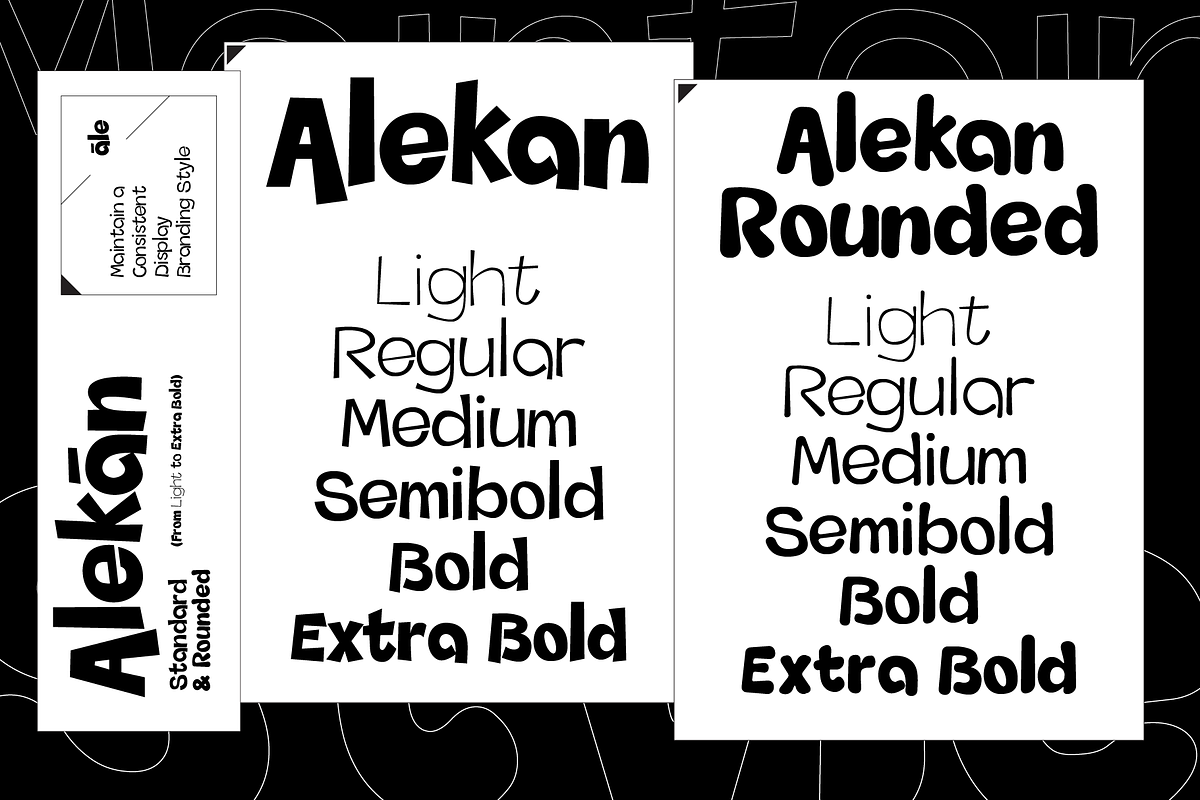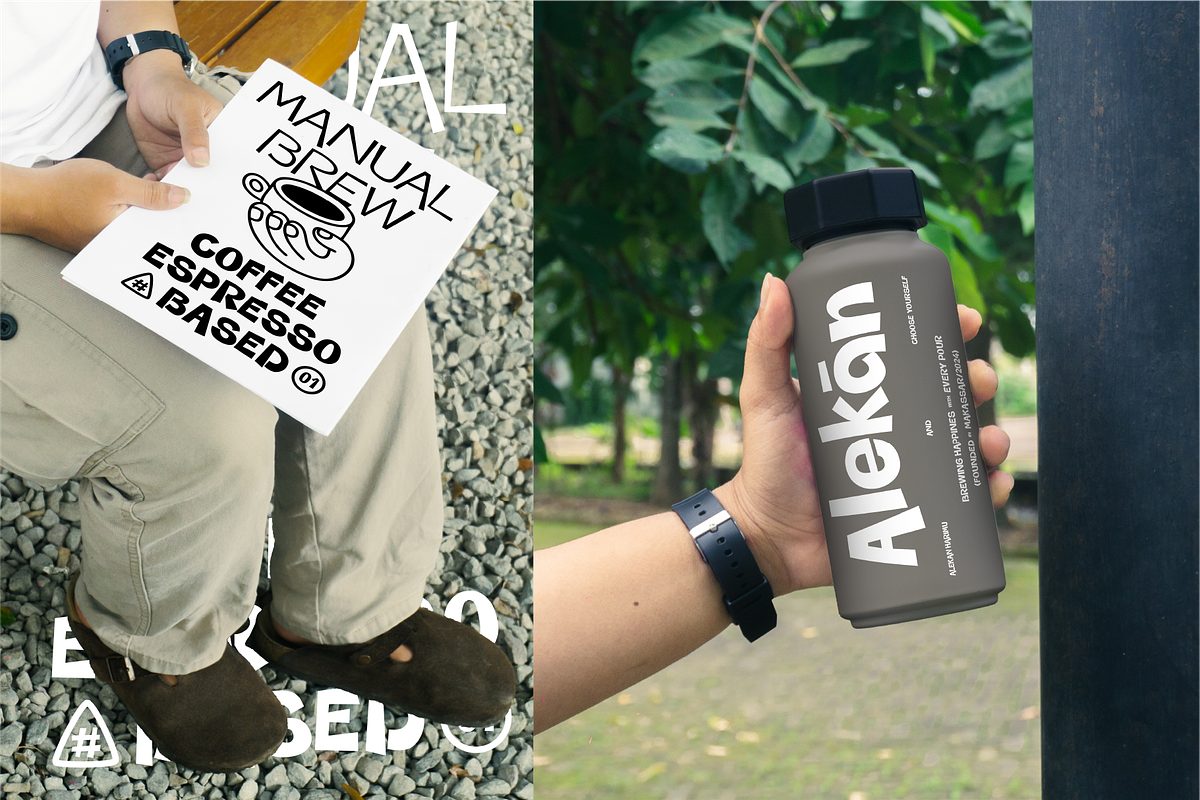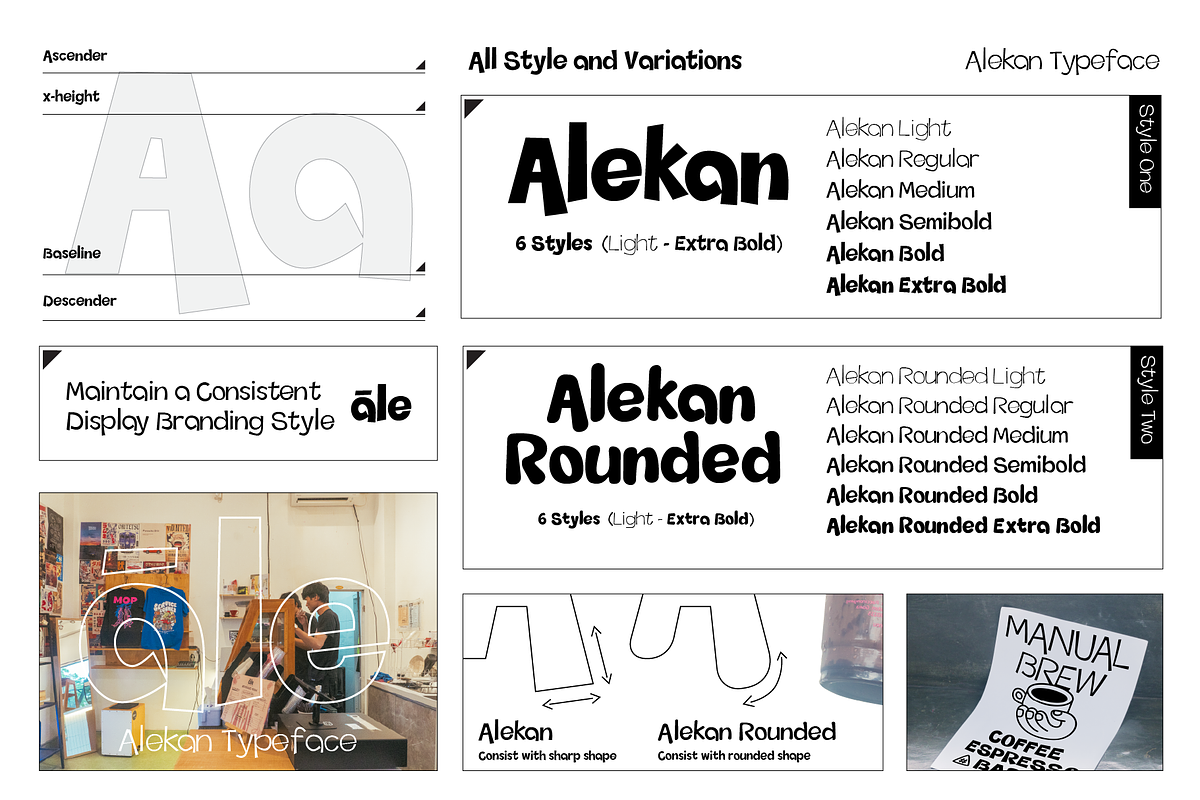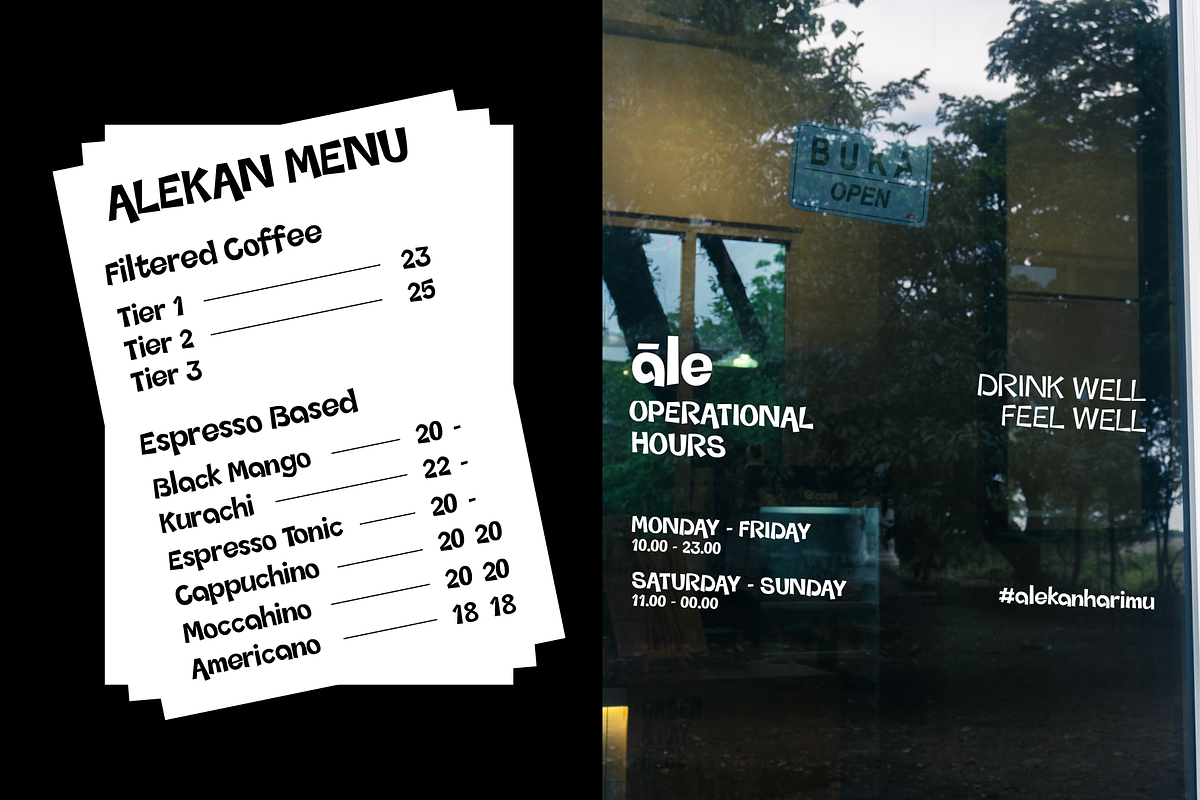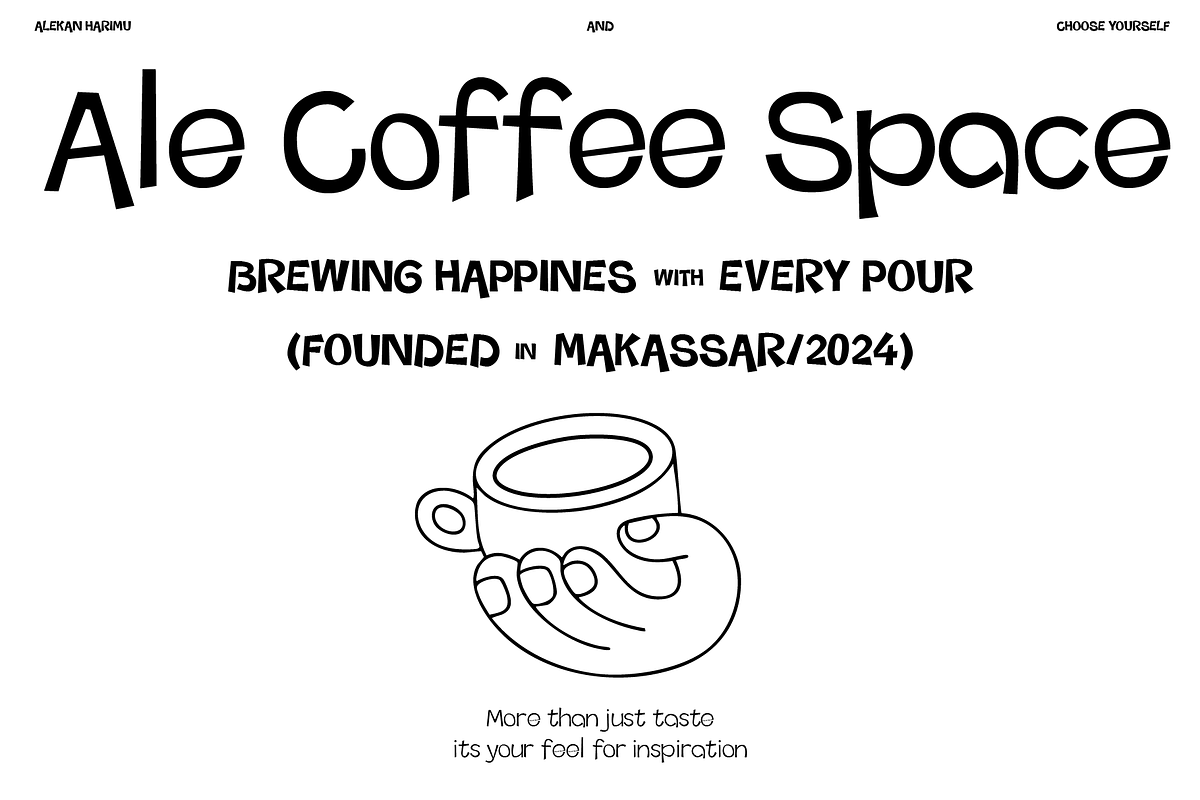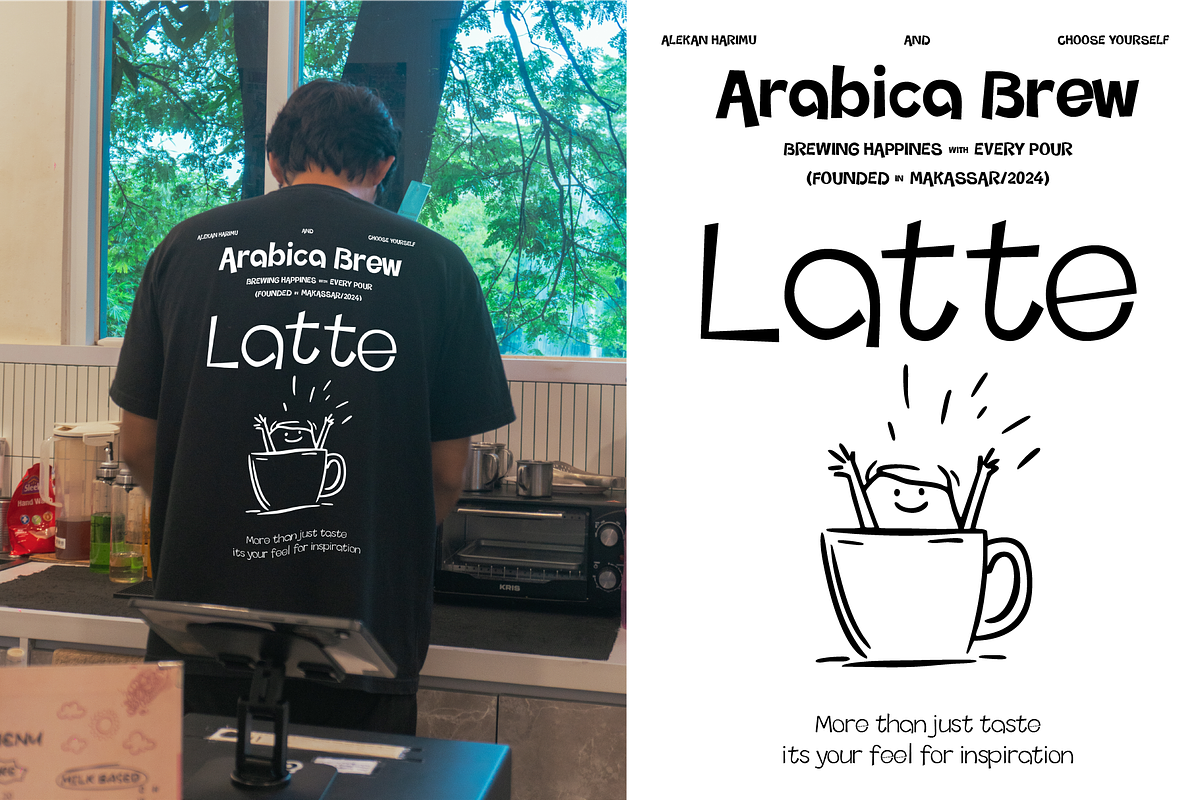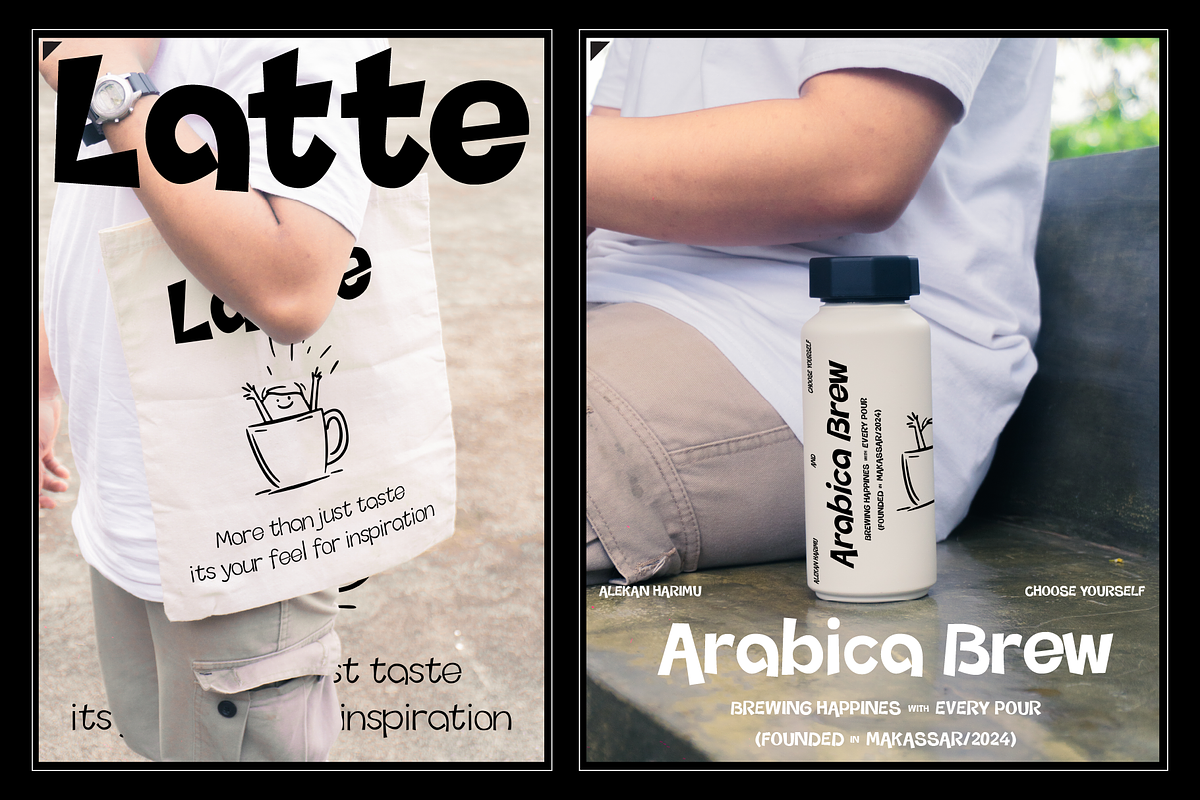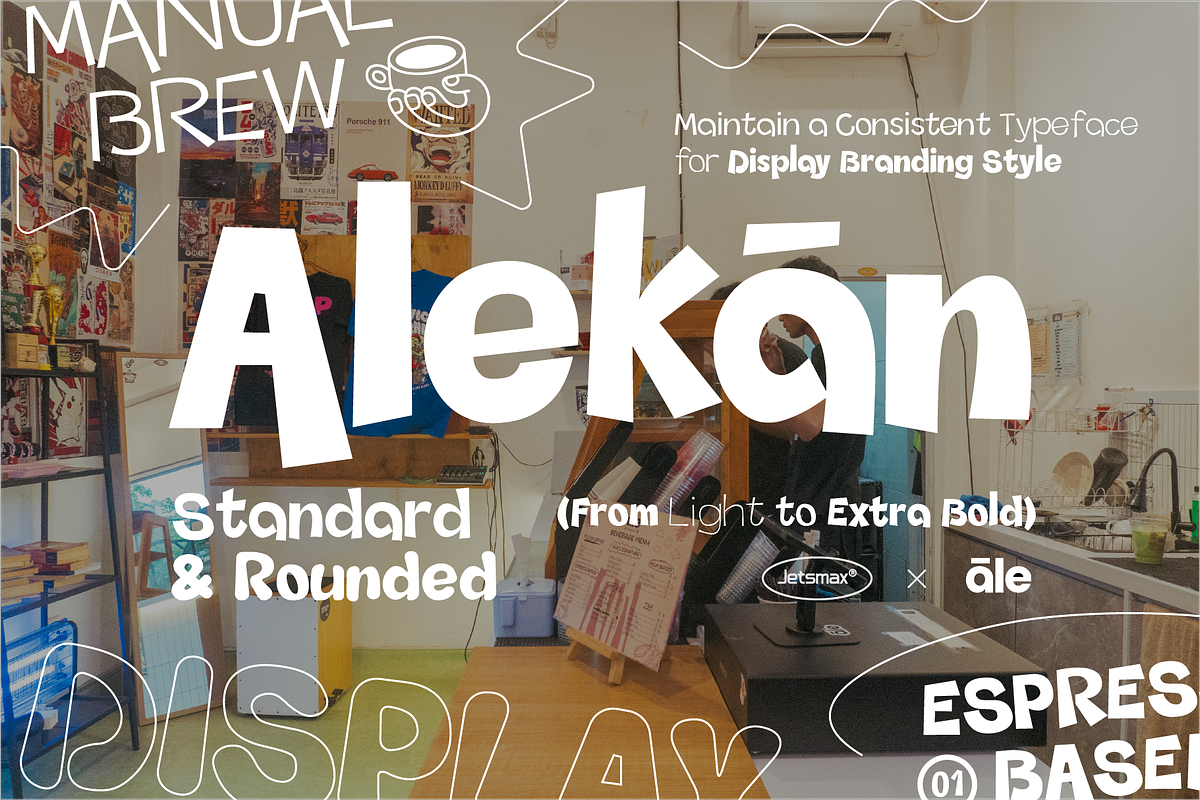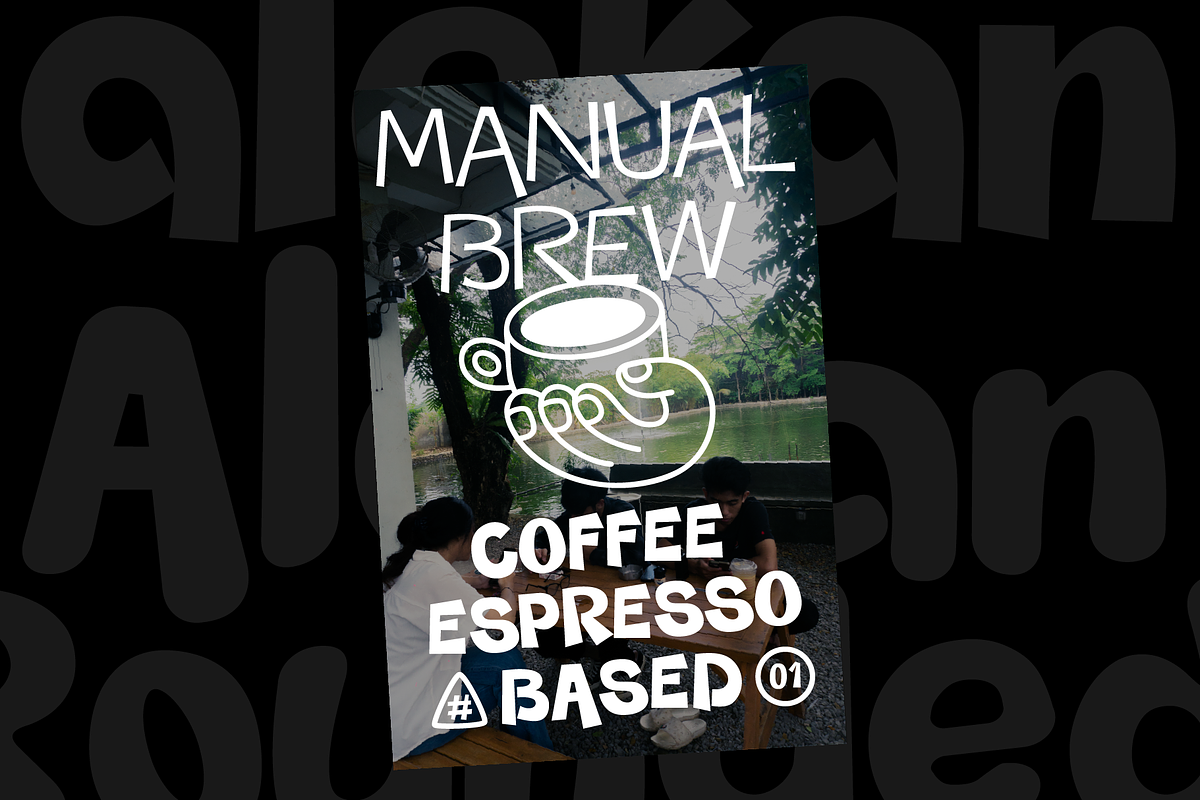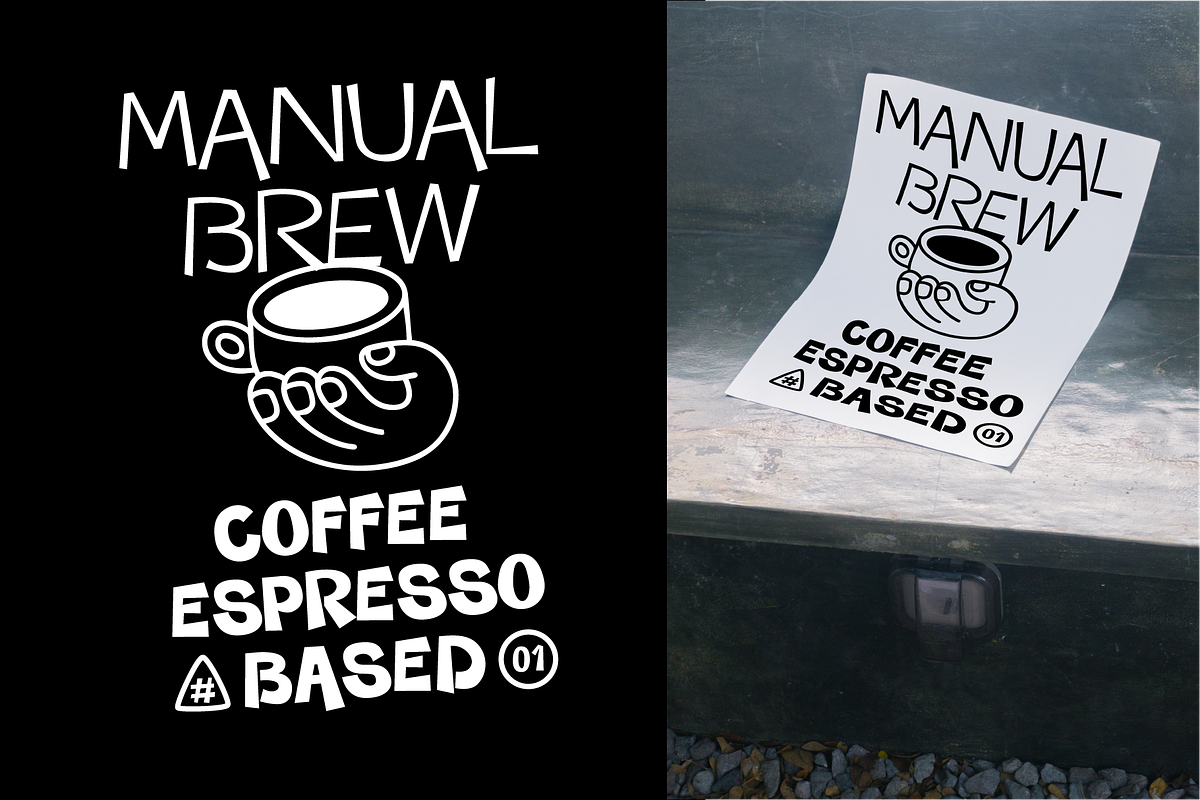
Alekan
Alekan is a display font project designed to give a fun and playful impression. This font is very suitable for use in various types of designs that require a cheerful and eye-catching appearance, such as designs for posters, branding, packaging, and social media content.
Alekan, available in two styles: Standard and Rounded. The font family offers a variety of weights ranging from Light to Extra Bold, including Regular, Medium, Semibold, and Bold options.
The Standard style features sharp and clean edges, while the Rounded style has softer, smoother corners for a friendly and approachable feel. The typeface emphasizes consistency and adaptability for branding purposes, making it versatile for maintaining a cohesive design style. The layout highlights the weights with sample text in both Standard and Rounded styles.